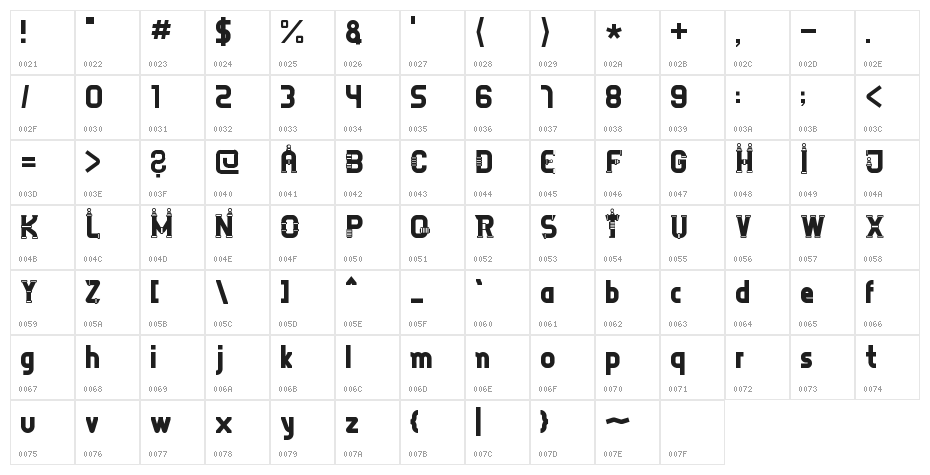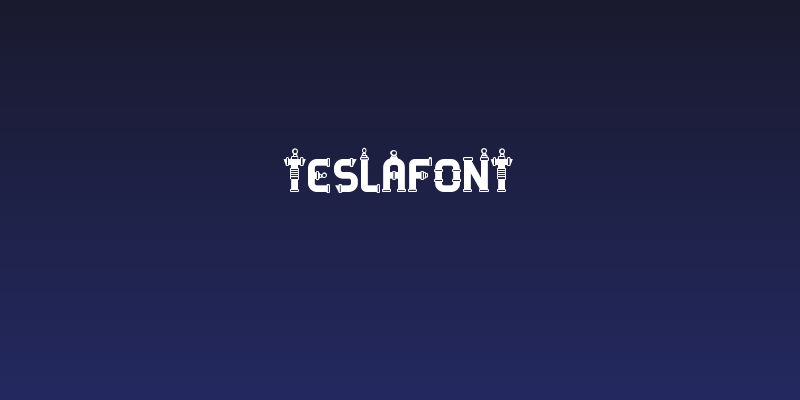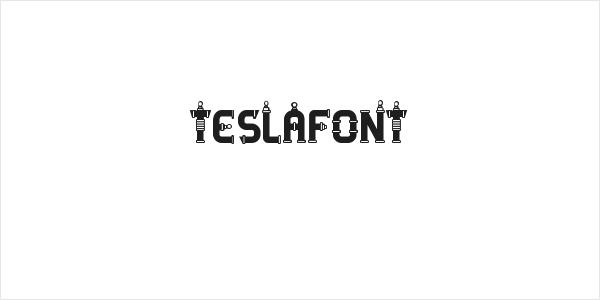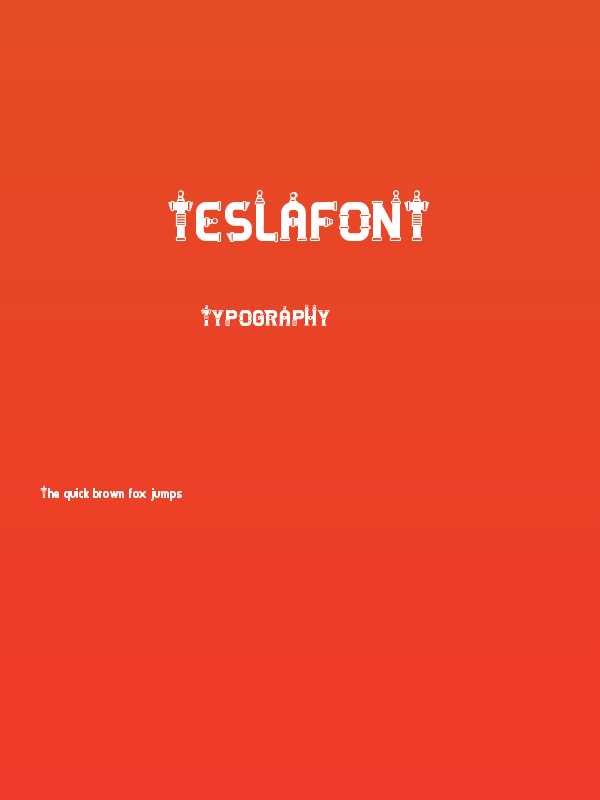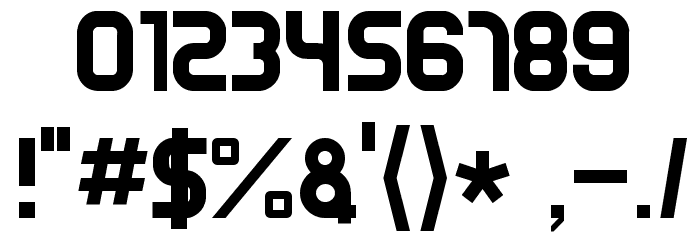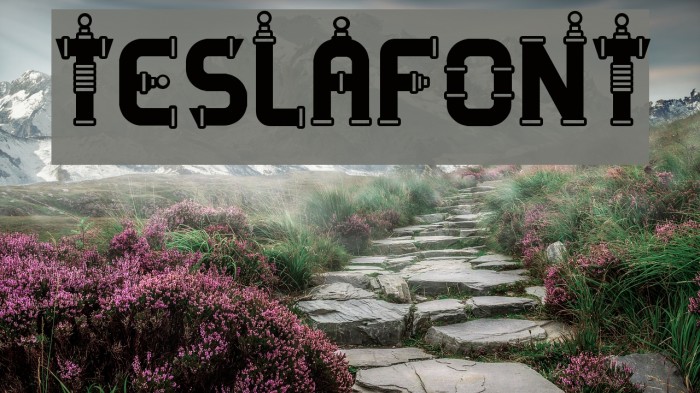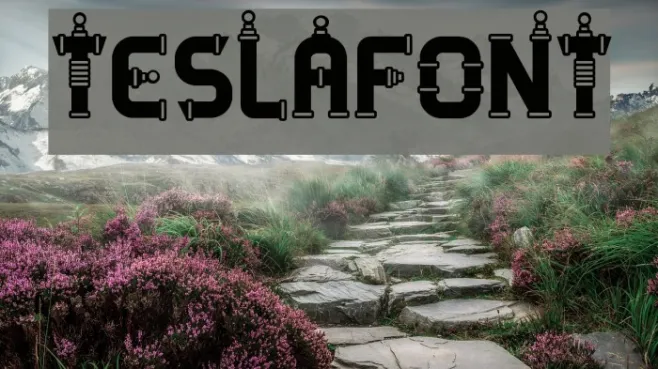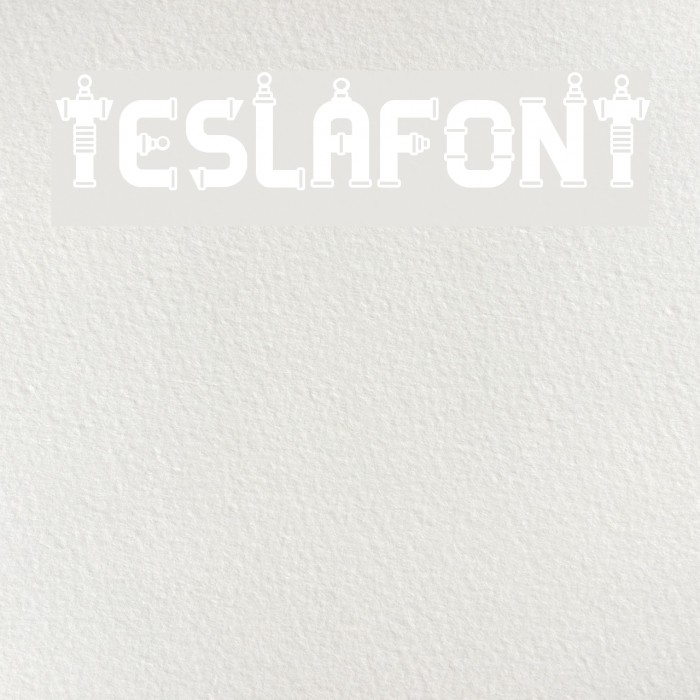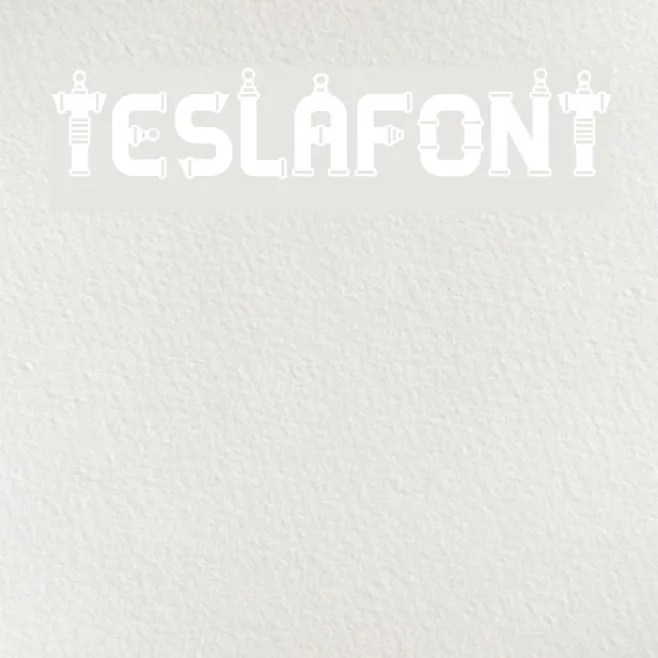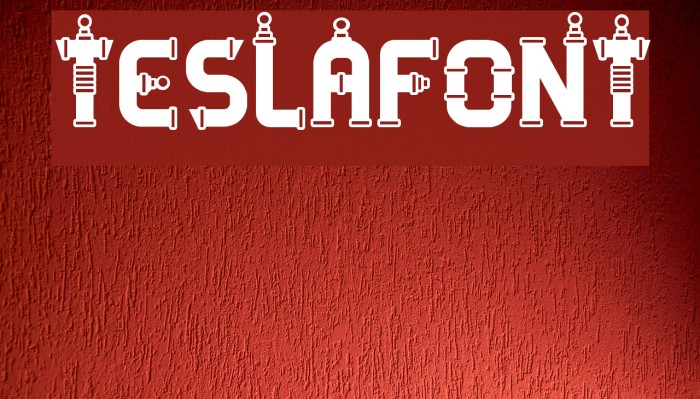
TESLAFONT Font
TESLAFONT Description
This font features a bold and futuristic design with a distinct mechanical aesthetic. The uppercase letters incorporate unique embellishments resembling mechanical components, giving it a technological and industrial feel. The lowercase letters maintain a strong, cohesive appearance with rounded edges and consistent stroke widths. Numbers and special characters follow the same bold and structured style, ensuring uniformity across all characters. The font's design is both eye-catching and functional, making it suitable for projects that require a modern and innovative look.
| Proposed Projects | Ideal for technology branding, sci-fi movie posters, video game titles, and innovative product packaging. |